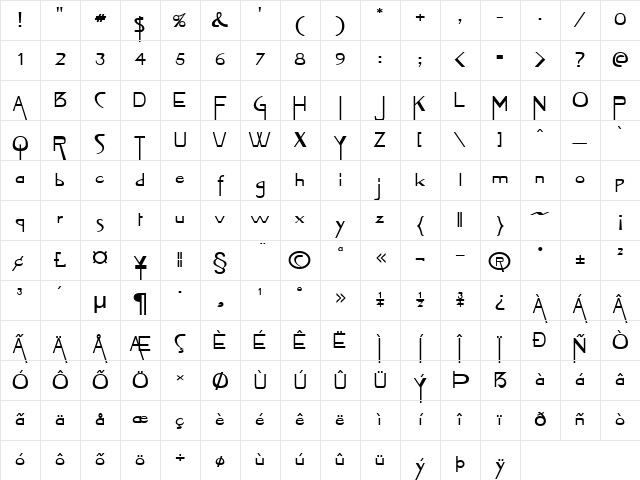
TabletExtended Normal Free Font
TabletExtended Normal
TabletExtended Family
Design Context for TabletExtended
TabletExtended is a composed and adaptable typeface that performs quietly and consistently across a wide range of design contexts.